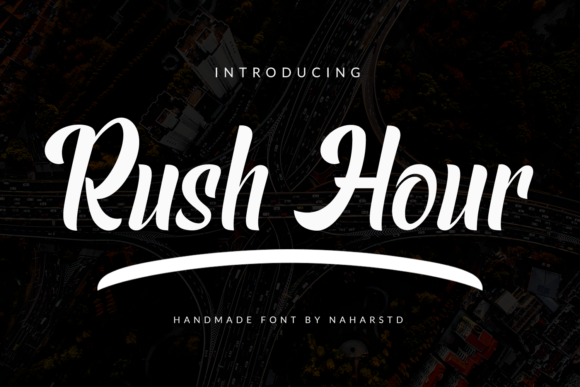
Journey through time and capture the essence of fast-paced moments with Rush Hour, the display font that's as dynamic as its namesake. This remarkable creation by Naharstd isn't just a font; it's an artistic tour de force, crafted to take your designs to exhilarating new heights.
Immerse yourself in the world of Rush Hour, where letters dance with energy, leaving an unforgettable impression on every viewer. Its bold and assertive strokes command attention, demanding to be seen and admired. Whether you're a seasoned designer or just starting out, Rush Hour is your ticket to creating captivating headlines, logos, and posters that leave a lasting impact.
With Rush Hour, ordinary becomes extraordinary. Transform your designs into masterpieces that resonate with your audience, leaving them breathless and eager for more. Every curve and angle of this font exudes personality and style, inviting you to explore the boundless possibilities of creativity. Embrace the rush, embrace the thrill, and elevate your designs to dizzying new heights with Rush Hour.